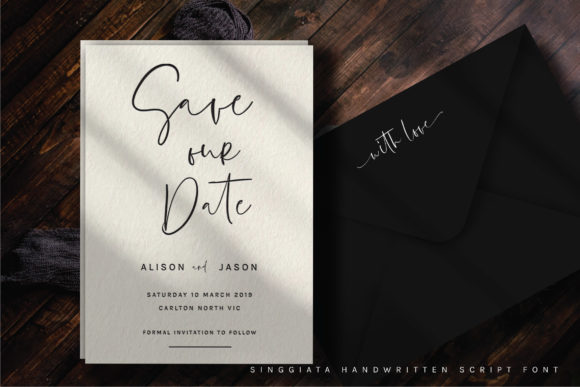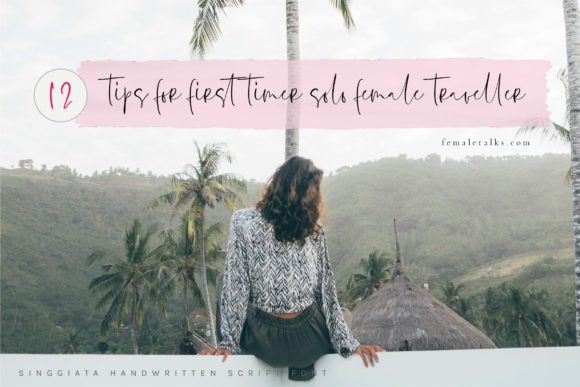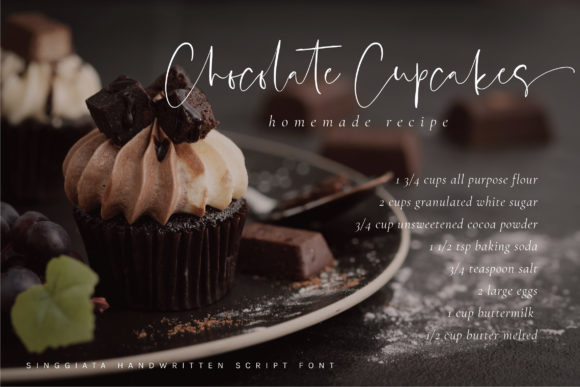
Introduction to Singgiata Font
Imagine you’re working on a creative project, and you’re in desperate need of the perfect font to bring your design to life. The perfect script font that exudes elegance and sophistication, one that will make your design stand out from the crowd. You search high and low, scrolling through countless fonts until you stumble upon the one that catches your eye – the enchanting Singgiata Font.
This beautiful, cursive script font is not only a feast for the eyes, but it’s also incredibly versatile. Whether you’re working on a high-end branding project or a whimsical wedding invitation, Singgiata Font is sure to elevate your design to new heights. And the best part? It’s PUA encoded, making it easy to access all of the glyphs and swashes you need to create truly stunning designs.
As a valuable resource for designers, Singgiata Font offers a unique combination of high-quality design and ease of use. With its transparent background and beautiful, flowing lines, it’s the perfect choice for any creative project. And the best part? It’s available for free download, making it an indispensable design resource for anyone looking to take their designs to the next level.
Key Features of Singgiata Font
- High-quality font with a transparent background, ideal for creative projects that require a unique design element.
- Designed with precision and care, ensuring a crisp and clear display at resolutions up to 300 DPI.
- Perfect for use in a variety of creative projects, including logos, graphics, and digital art.
- Exclusive design that sets it apart from other fonts, offering a unique visual identity for your work.
Honest Review: Singgiata Font
I recently stumbled upon the Singgiata Font and I must say, it’s a gem in the world of design resources. The font is free to download, making it an excellent addition to any creative project. What I love about this font is its high quality, transparent background, and elegant aesthetic.
Here are some things that work well about the Singgiata Font:
- ✨ Elegant and modern design that’s perfect for creative projects
- ✨ High quality, clear, and crisp font that’s easy to read
- ✨ Works well for both digital and print projects
- ⚠️ Limited font styles and weights, which might not be ideal for projects that require a lot of variation
- ⚠️ May not be suitable for projects that require a lot of emphasis or bold text
Overall, I’m impressed with the Singgiata Font. It’s a great addition to any designer’s toolkit, and its high quality and elegant design make it a pleasure to work with. If you’re looking for a reliable and versatile font, the Singgiata Font is definitely worth checking out.
Tips for Getting the Most Out of Singgiata Font
To get the most out of the Singgiata Font, experiment with different font sizes, colors, and styles to find the combination that works best for your design. You can also use the font in combination with other design resources to create a unique and creative project.
The Singgiata Font is perfect for a variety of creative projects, including logos, business cards, and social media graphics. You can also use the font to add a personal touch to your presentations or reports.
Can I use Singgiata Font with a transparent background?
Yes, Singgiata Font supports transparent backgrounds, allowing you to overlay it on images, videos, or other design elements without a distracting background. This feature makes it an excellent choice for designers working on high-quality, creative projects that require a professional and polished look.